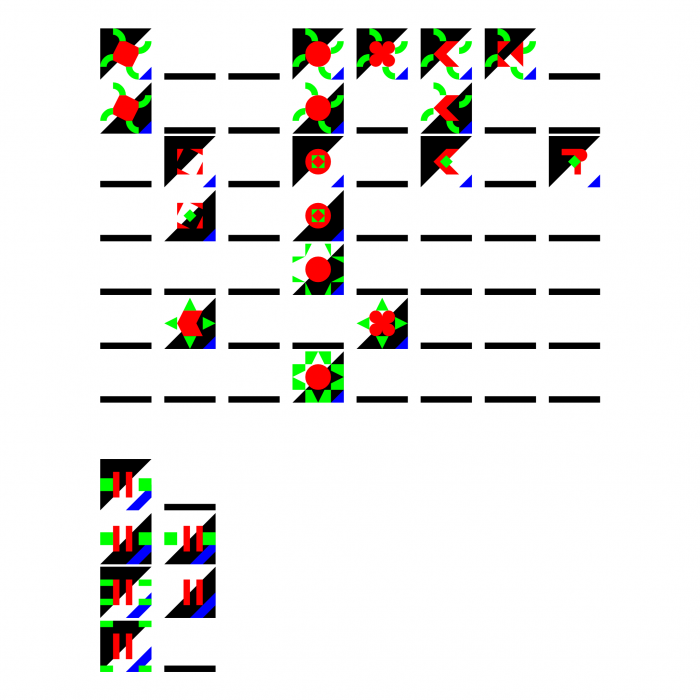
cipher font made for the color contest
can be decoded using an ipa chart
I know the Reference Art of this Font & is Figure Art
there wasnt actually any reference art used for this besides an ipa chart
I know the Reference Art of this Font & is Figure Art
there wasnt actually any reference art used for this besides an ipa chart